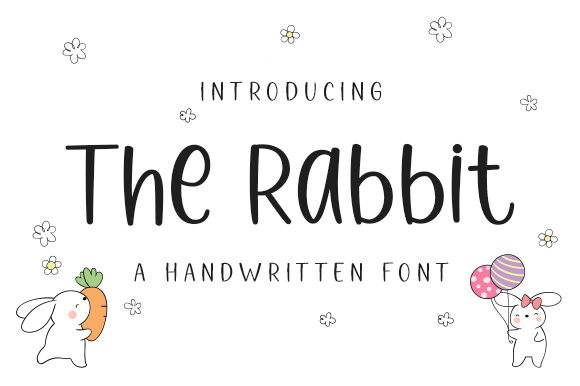
The Rabbit
The Rabbit, a delightful creation by Graphix Line Studio, is a captivating and versatile font that exudes an air of charm and elegance. With its lovely handwritten style, it adds a touch of whimsy to any project. Its semi-bold font makes it perfect for creating eye-catching headlines or logos that demand attention. Whether you're designing wedding invitations, greeting cards, or social media graphics, The Rabbit will lend a sense of warmth and friendliness to your work. Embrace this enchanting typeface and let your creativity flourish in both print and digital realms.